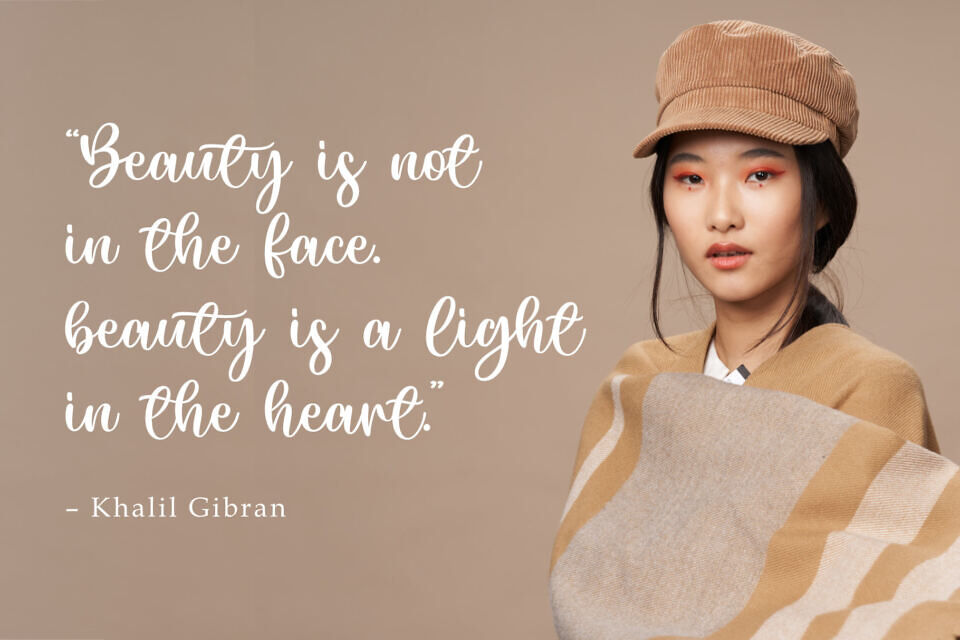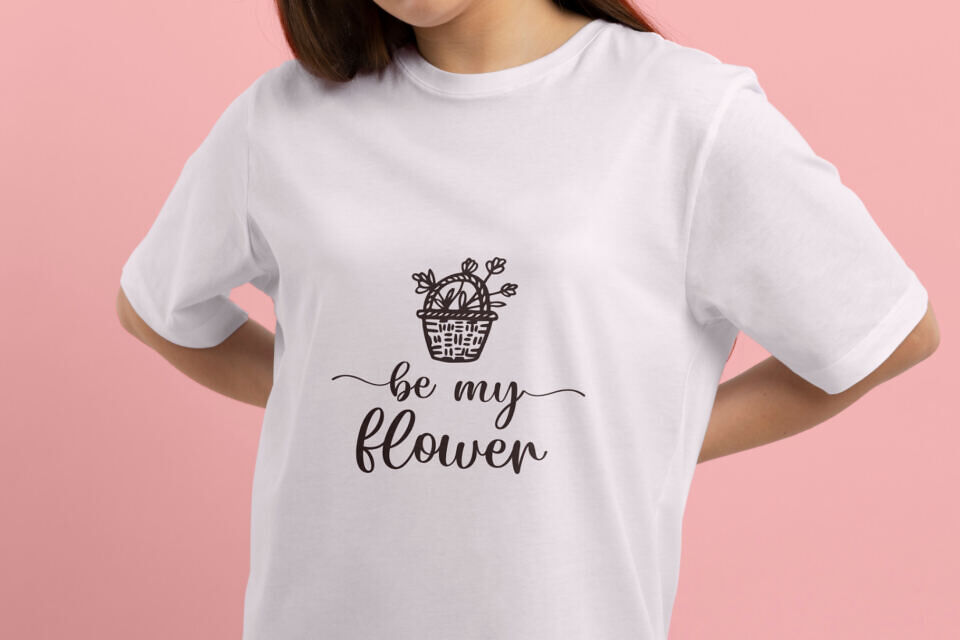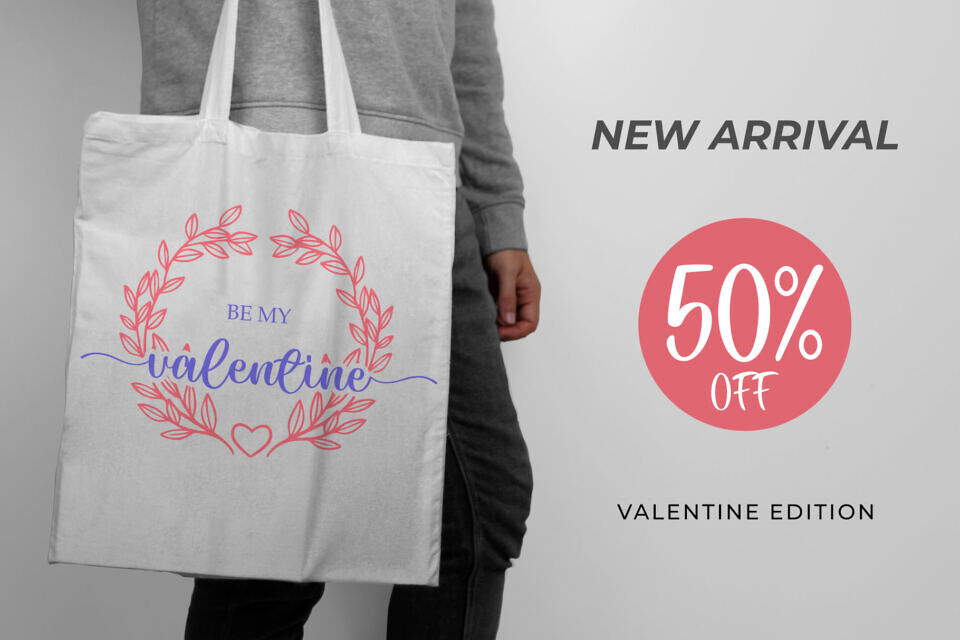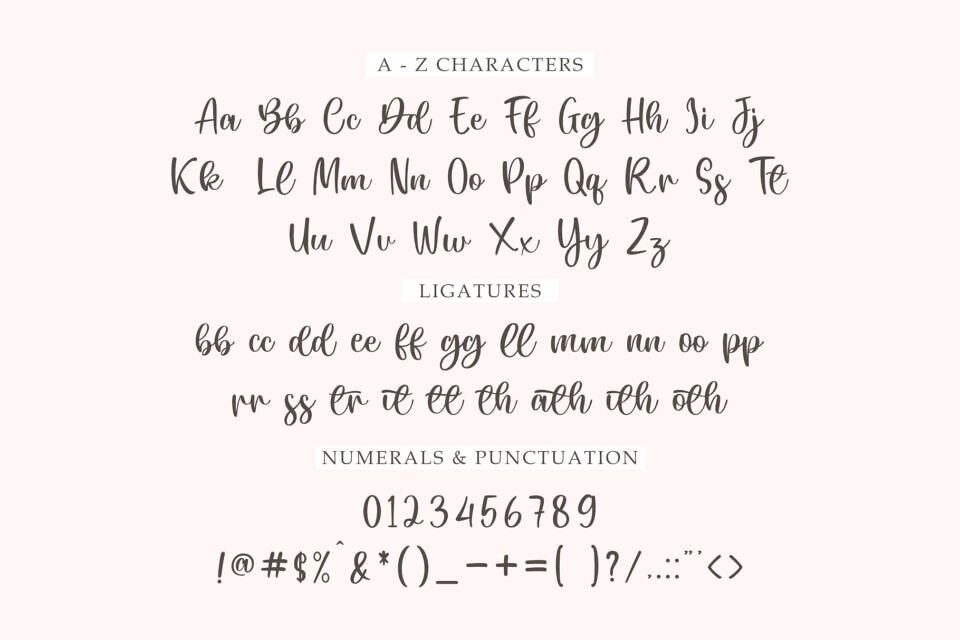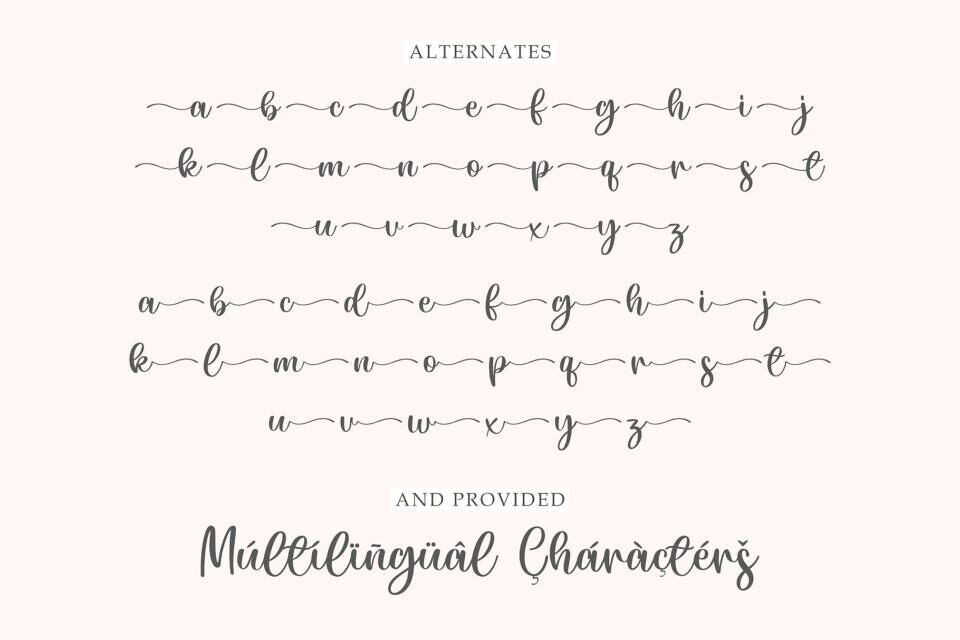
Worthylove is a romantic calligraphy font that will make your wedding design project stand out. This font features beautiful curves, elegant swashes, and stunning ligatures and alternates.
Whether you need to create invitations, save the dates, menus, or thank you cards, Worthylove will add a touch of charm and sophistication to your designs. Download Worthylove today and let your love shine through your typography.